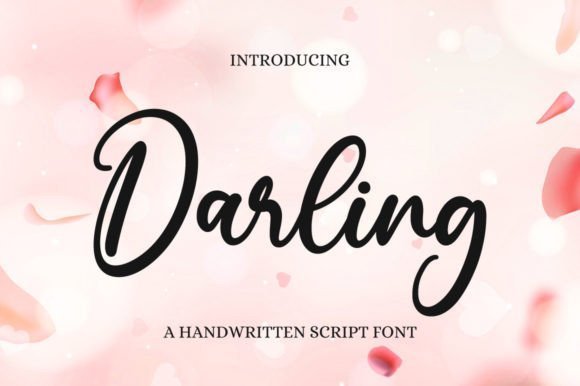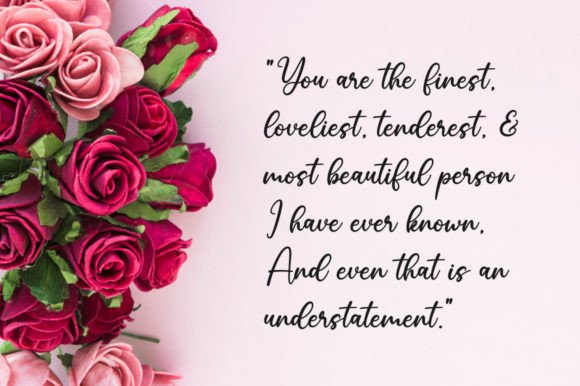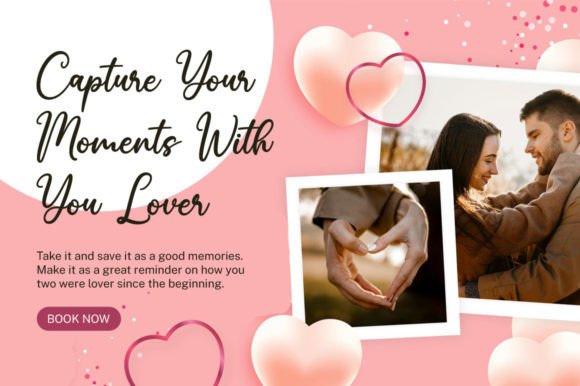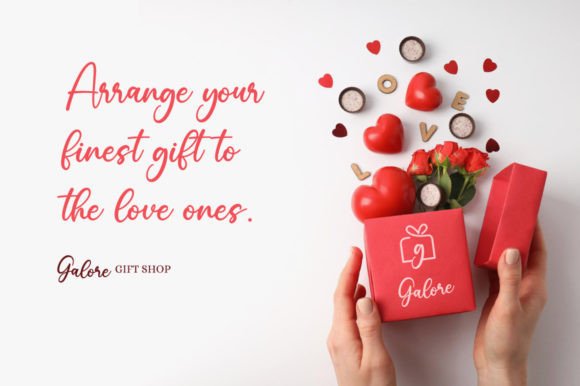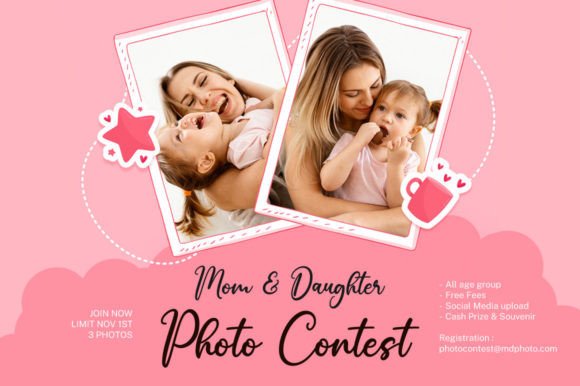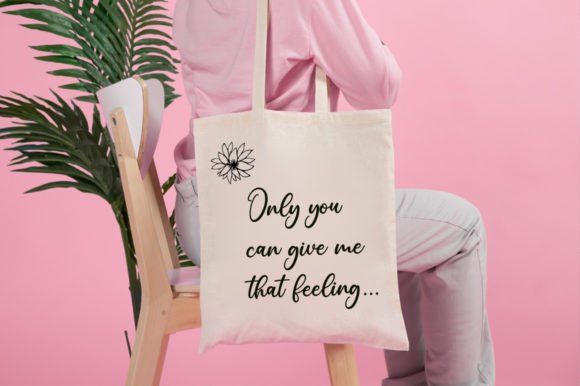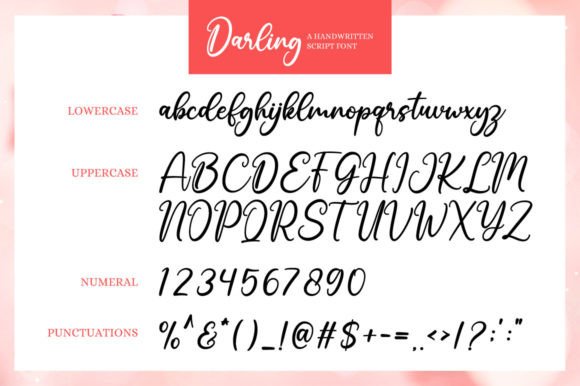
The Perfect Brushstroke: Unveiling the Darling Font
For those special moments, you need a font that’s just as special – enter the Darling Font. This lovely, timeless handwritten font is perfect for creating eye-catching logos, branding, and quotes that leave a lasting impression. With its unique brushstroke style, the Darling Font adds a touch of elegance and sophistication to any design.
Darling Font Key Features
- Font Family: Darling Font is a modern, elegant script font designed for various applications, including invitations, logos, and body text.
- Unique Characteristics: Darling Font features connected letters, swashes, and flourishes, giving it a unique, handwritten feel that adds a touch of elegance to any design.
Darling Font Review
I recently had the chance to work with the Darling Font, and I must say, it’s a mixed bag. Let’s start with the good stuff: ✨ The font’s elegant and feminine aesthetic is perfect for projects that require a touch of sophistication. It’s especially great for wedding invitations, baby shower decorations, and other events where a soft, romantic vibe is desired.
✨ Another plus is the font’s versatility. It comes in a range of weights, from light to bold, which makes it easy to use in a variety of contexts. Whether you’re creating a minimalist logo or a bold headline, Darling Font has got you covered.
However, I did encounter some issues with the font’s limitations: ⚠️ The font’s legibility can suffer at smaller font sizes, which can make it difficult to read. Additionally, the font’s curves can be quite dramatic, which may not be suitable for all types of content.
Overall, I’d give Darling Font 3.5 out of 5 stars. While it excels in certain areas, its limitations prevent it from being a go-to choice for all projects. If you’re looking for a font with a soft, romantic aesthetic, Darling Font is definitely worth considering.
- Great for: wedding invitations, baby shower decorations, minimalist logos
- Limited legibility at smaller font sizes
- Dramatic curves may not be suitable for all content
The Darling Font is perfect for creating elegant and sophisticated designs. Here are some tips and common use cases:
- Use the Darling Font for titles and headings to add a touch of luxury and sophistication.
- Pair the Darling Font with other elegant fonts to create a harmonious and balanced design.
- Use the Darling Font for invitations, wedding stationery, and other special occasion designs.